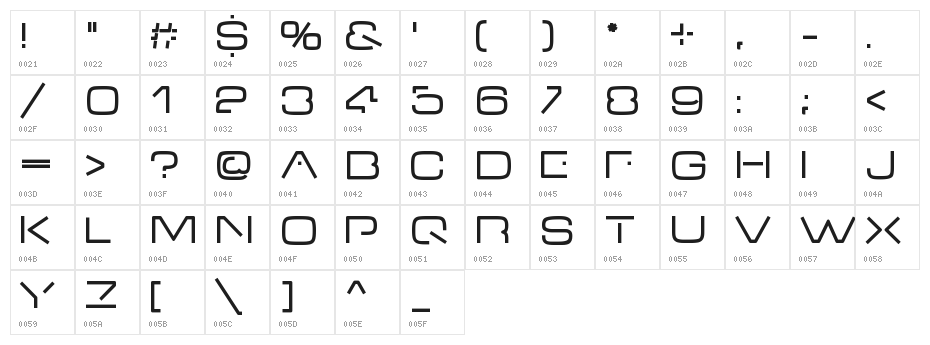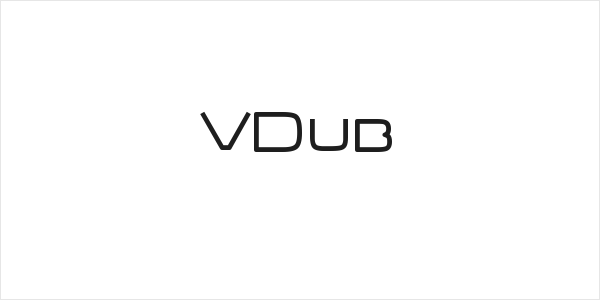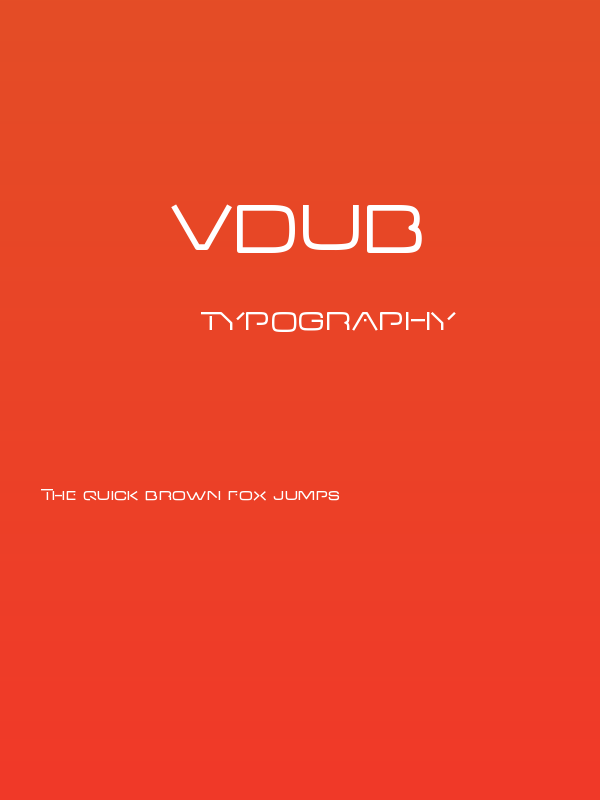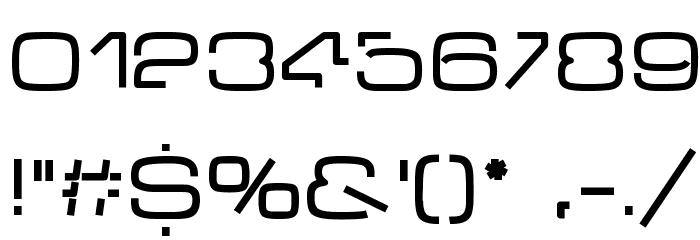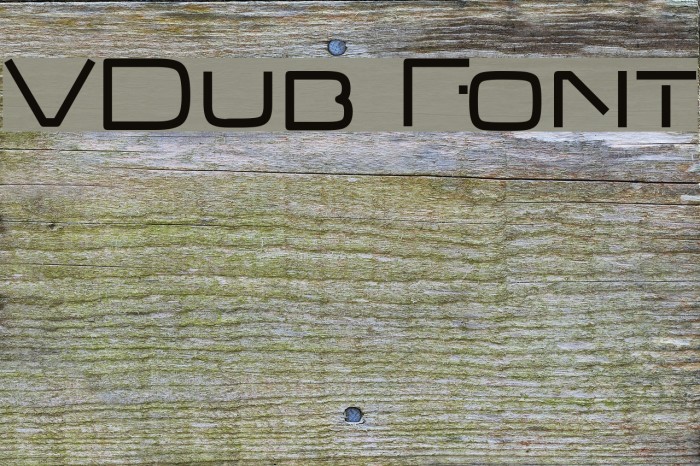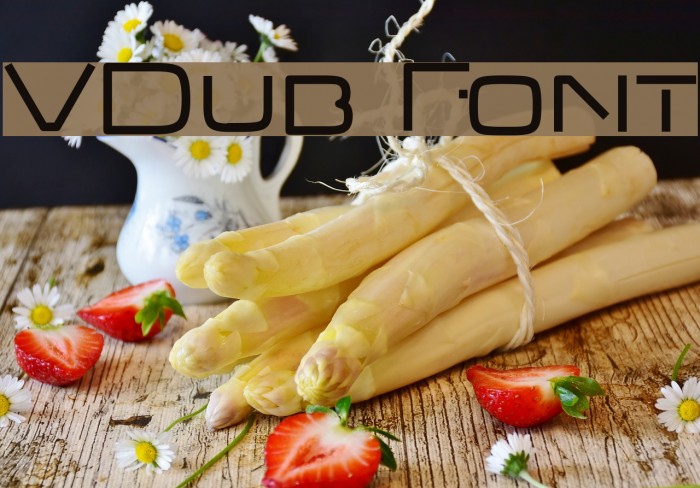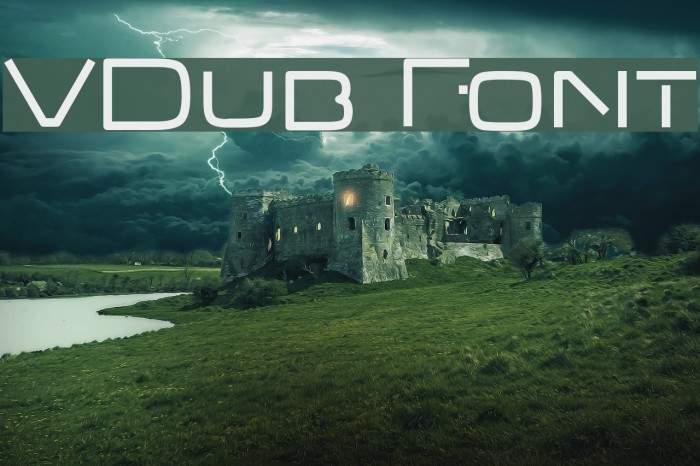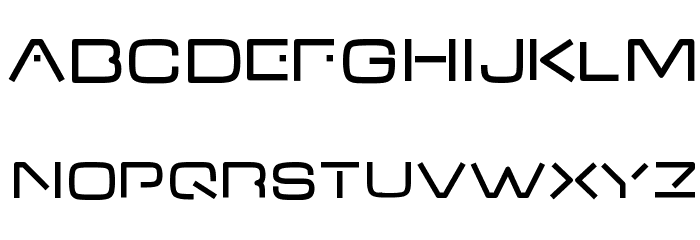
VDub Font
VDub Description
This font features a modern, geometric design with clean lines and a futuristic aesthetic. The characters are constructed with a consistent stroke width, giving it a uniform appearance. The uppercase letters are bold and striking, while the lowercase letters maintain the same geometric style. The numerals are distinct and easily readable, complementing the overall design. Special characters are included, maintaining the same stylistic approach. This font is ideal for projects that require a contemporary and sleek look.
| Use Case | Headlines, Logos, Digital Interfaces |
| Proposed Projects | Ideal for technology branding, modern advertising, digital interfaces, and futuristic design projects. |